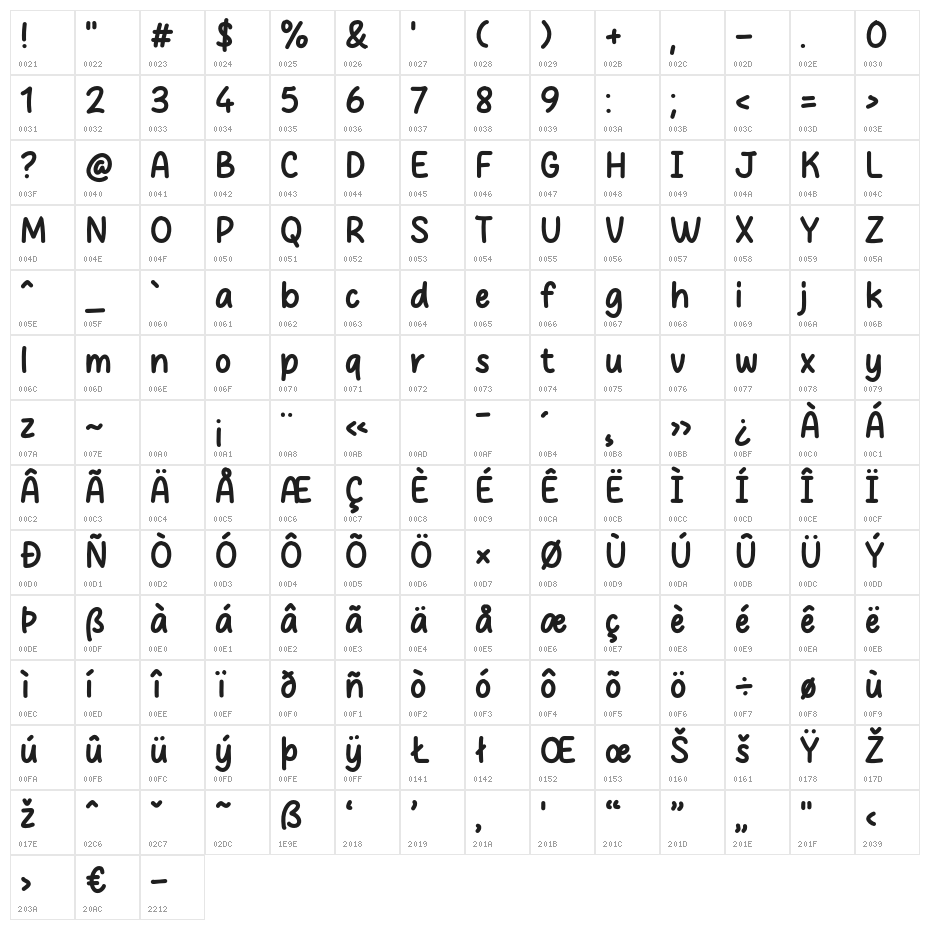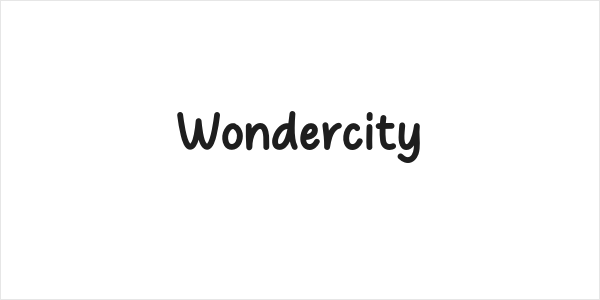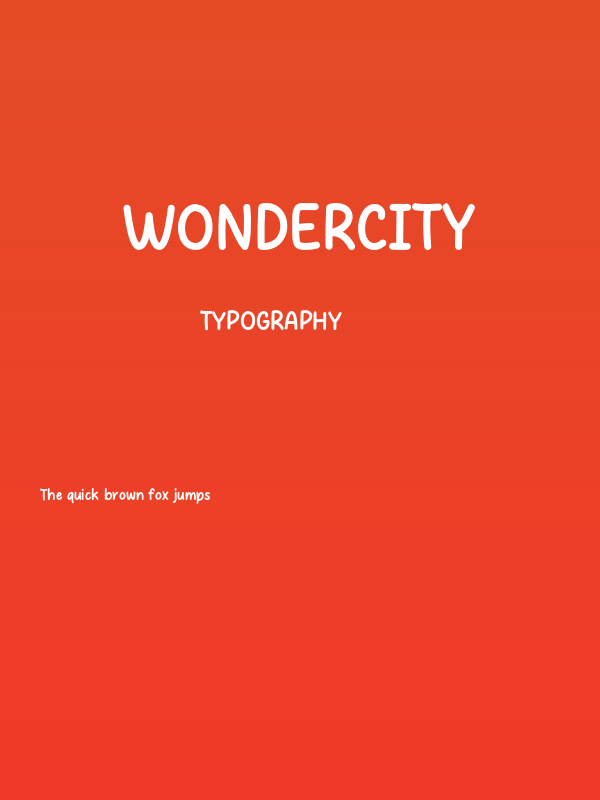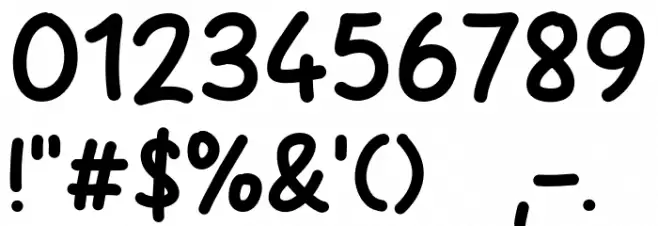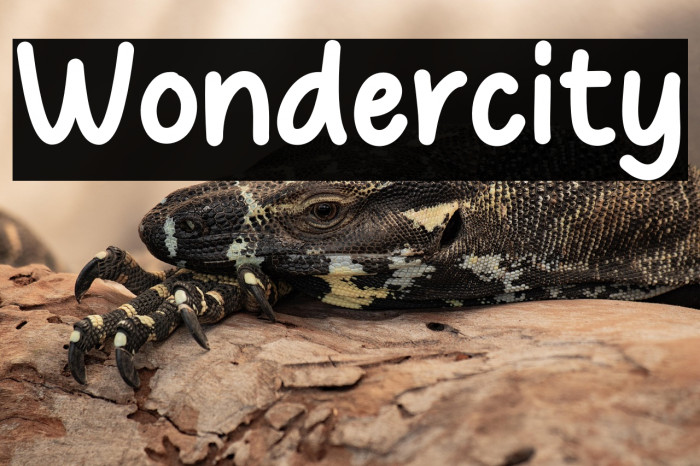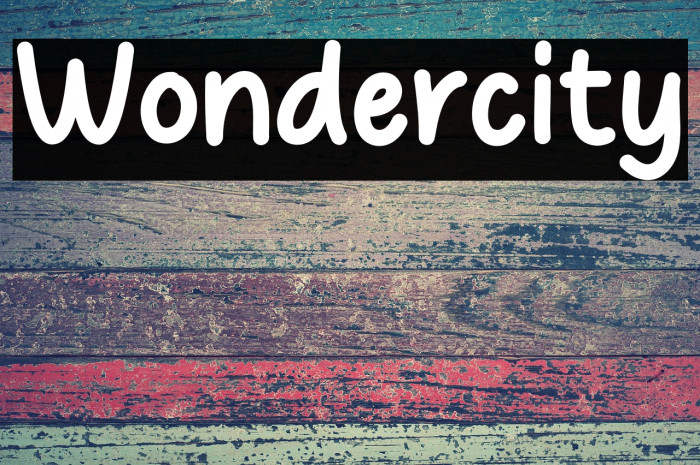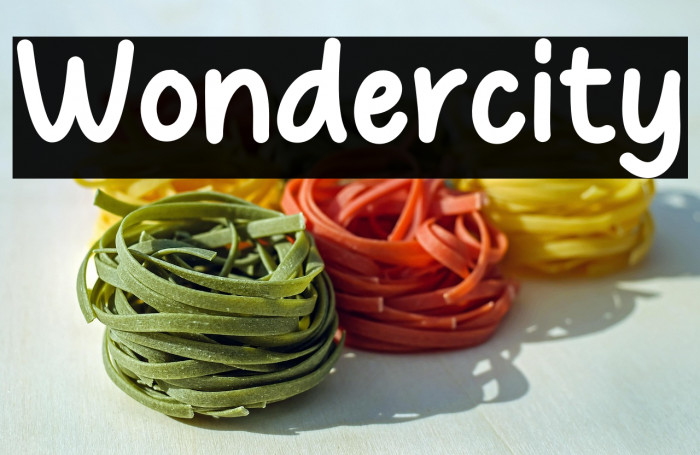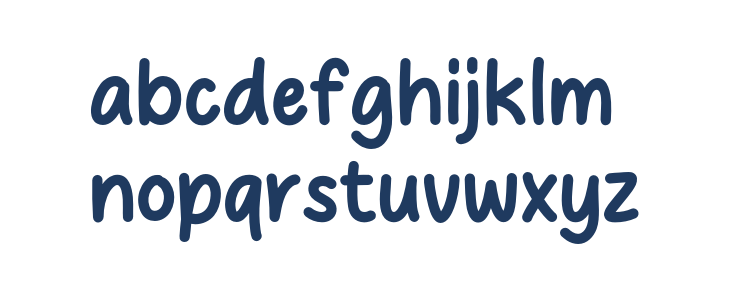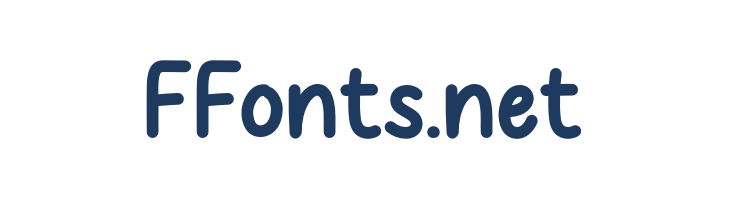
Wondercity Font
Wondercity Description
This font exudes a playful and friendly vibe with its rounded and slightly irregular letterforms. The characters are bold and have a hand-drawn appearance, giving them a casual and approachable feel. The uppercase and lowercase letters maintain a consistent style, with smooth curves and a uniform stroke width. The numerals and special characters complement the alphabet with the same whimsical quality. This font is perfect for projects that require a touch of fun and creativity, such as children's books, playful branding, or casual invitations.
| Proposed Projects | Ideal for children's books, playful branding, casual invitations, and creative projects. |